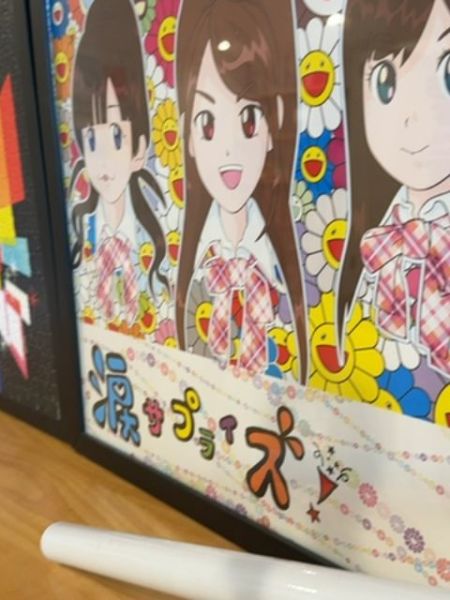
The typography is playful and dynamic, incorporating a mix of bold, rounded characters with vibrant colors. The font style appears inspired by handwritten or cartoon fonts, enhancing the youthful and fun aesthetic of the packaging.